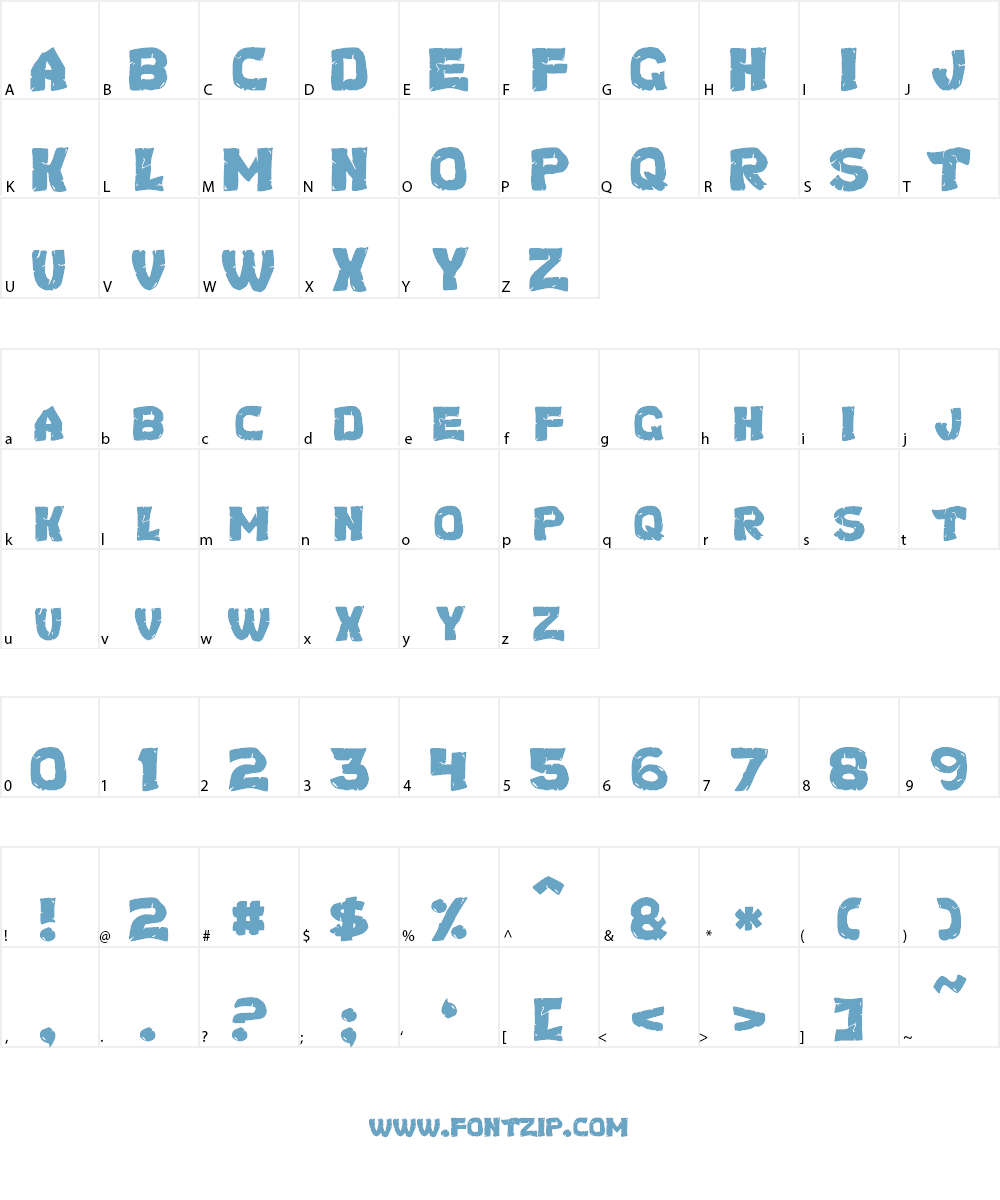
Turtles is inspired by the title logo of the classic Teenaged Muntant Ninja Turtlesi toyline and cartoon from the 1980s. This typeface includes the full alphabet, extended punctuation, and Euro. The ‘at sign’ has been replaced with the ‘Foot Clan’ symbol.